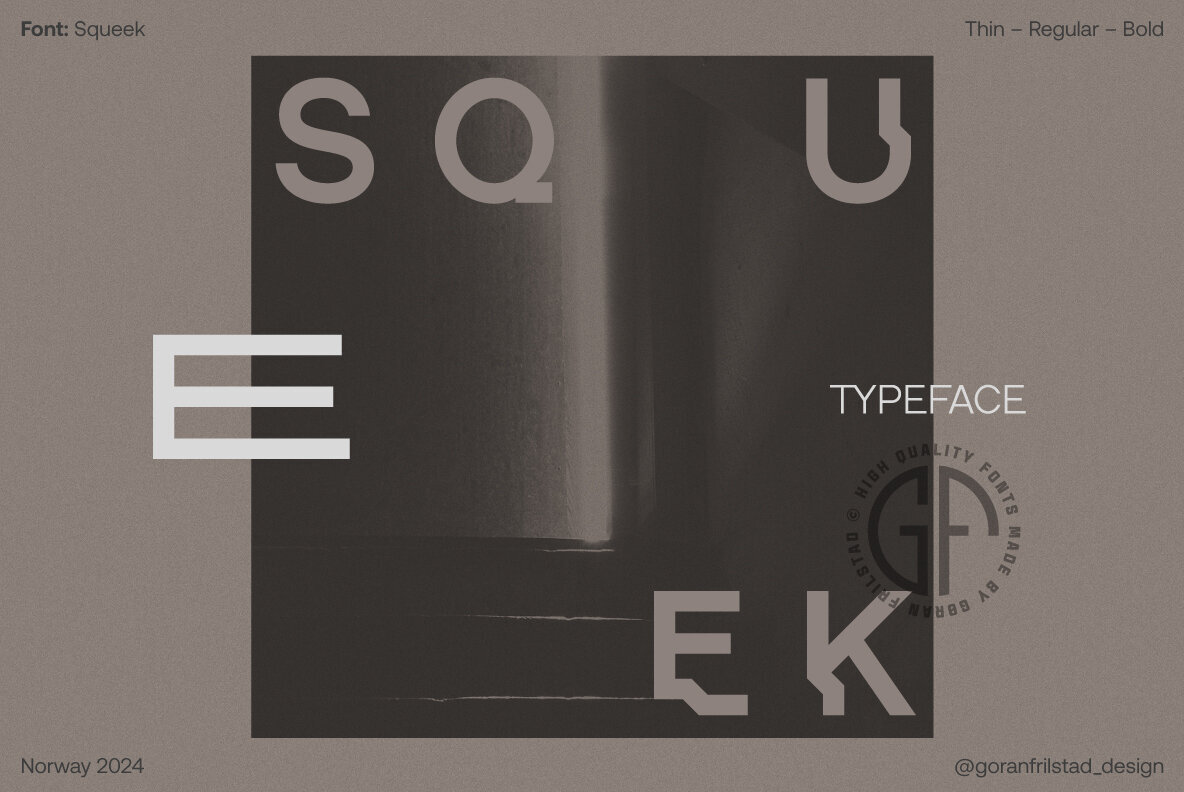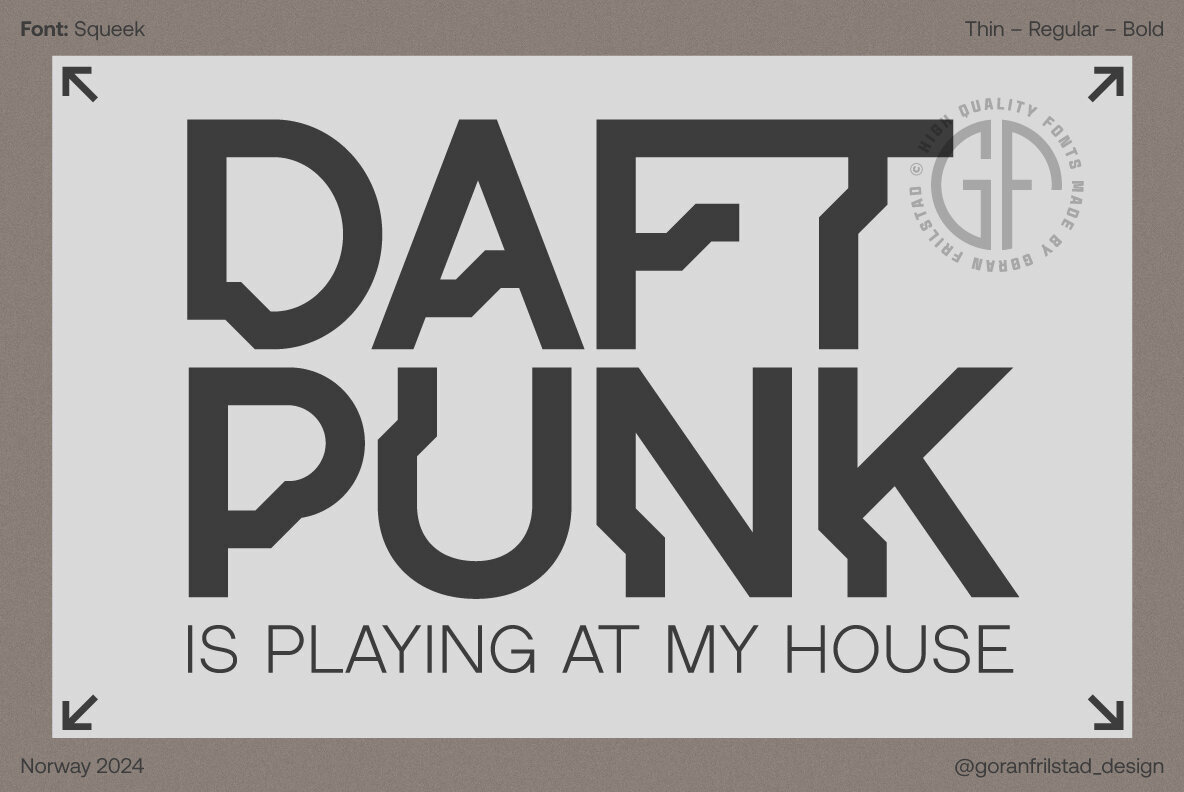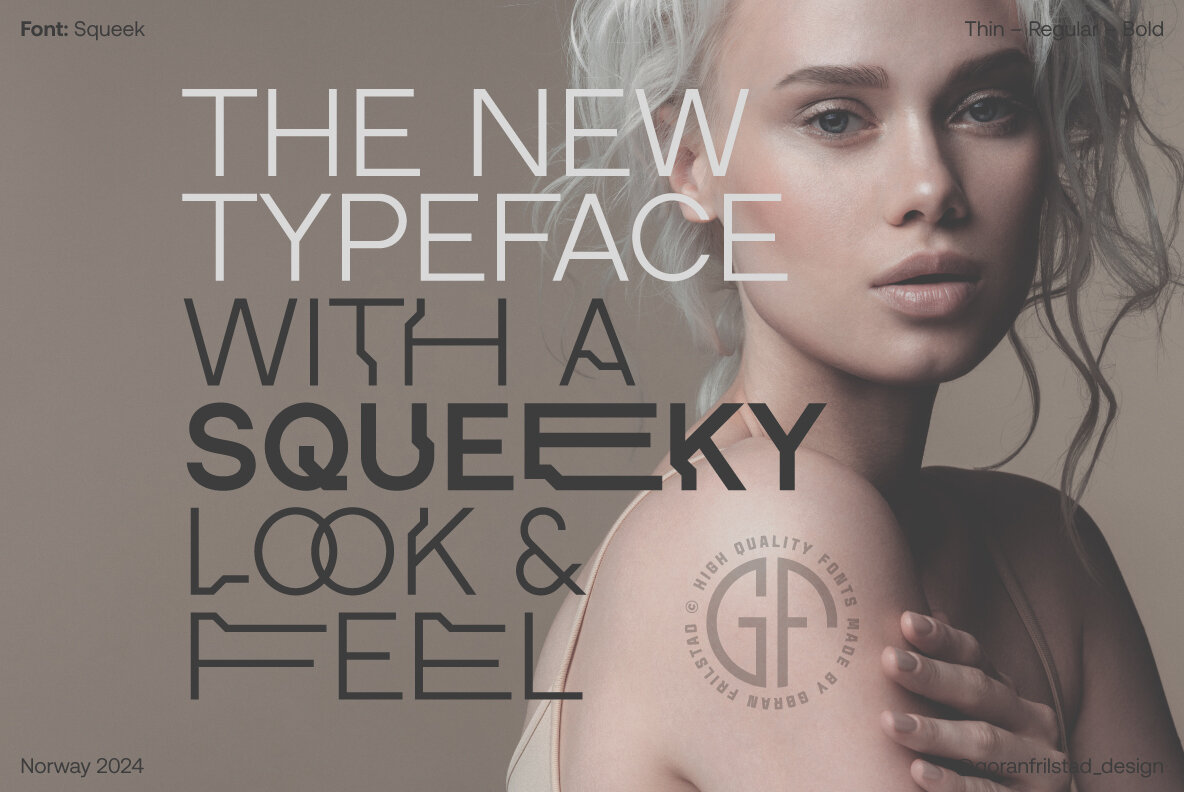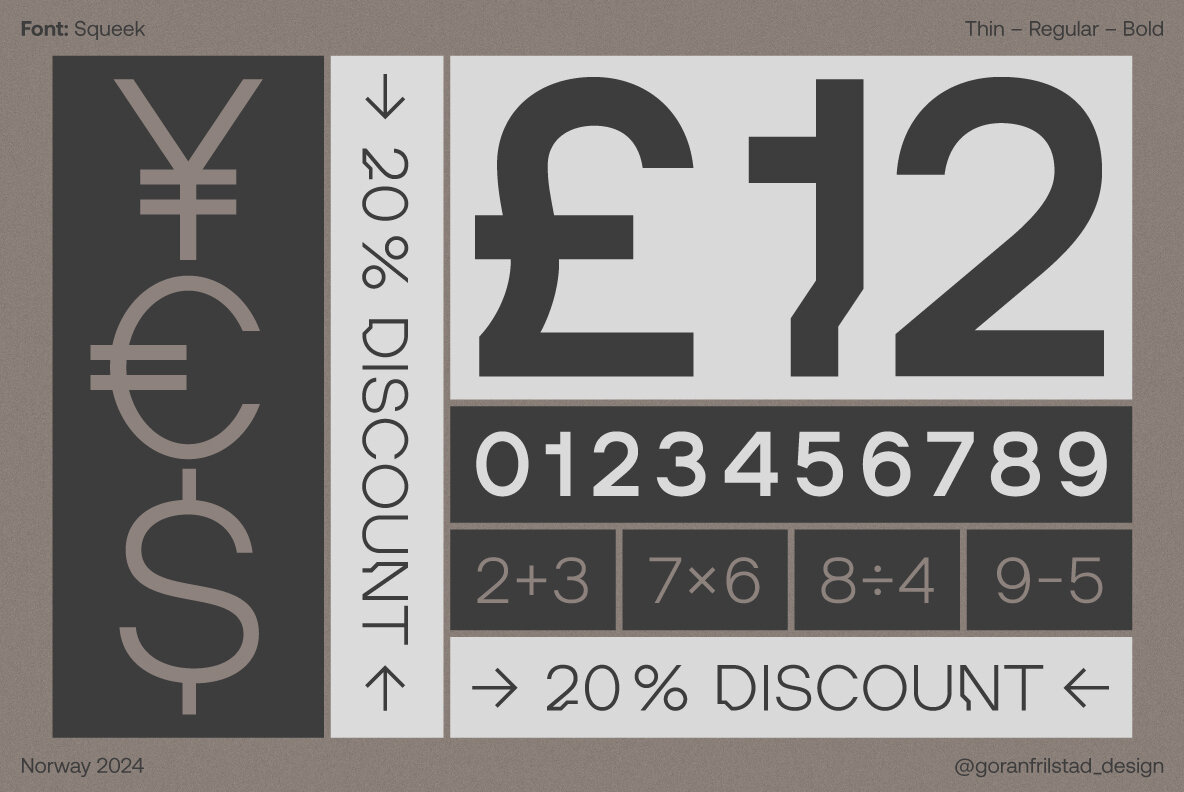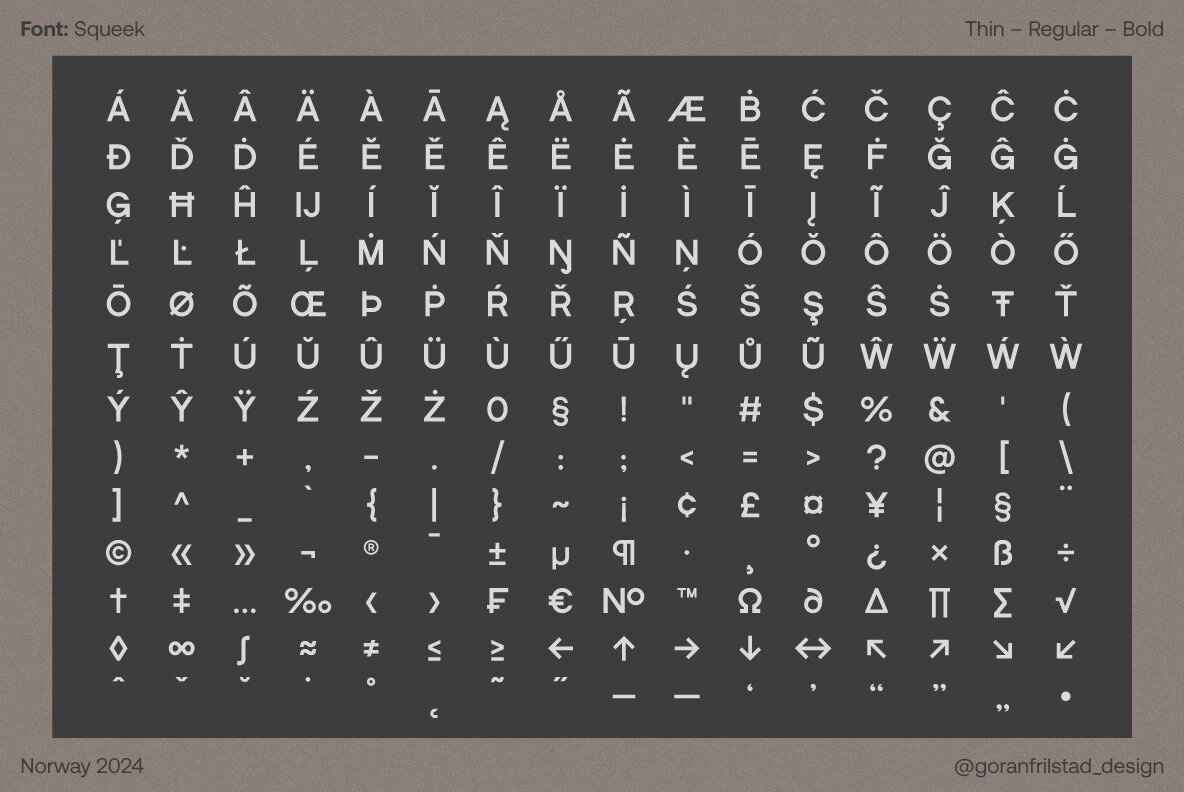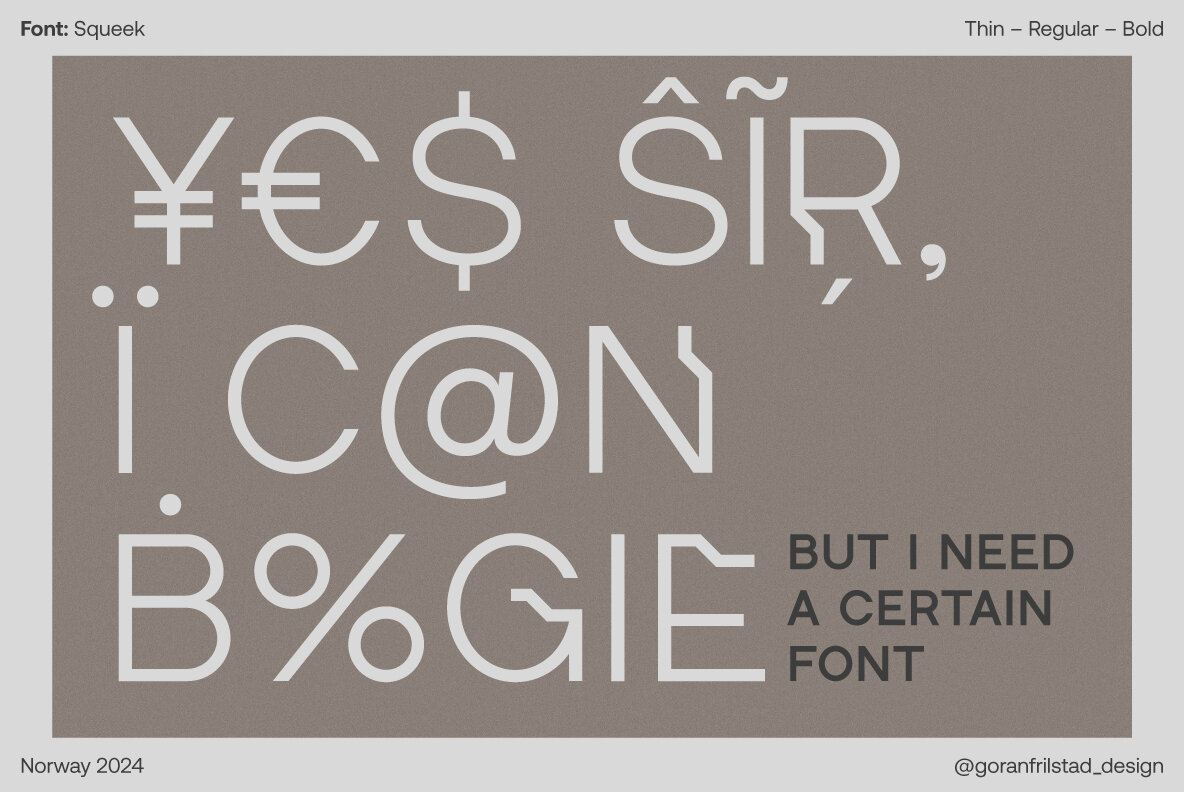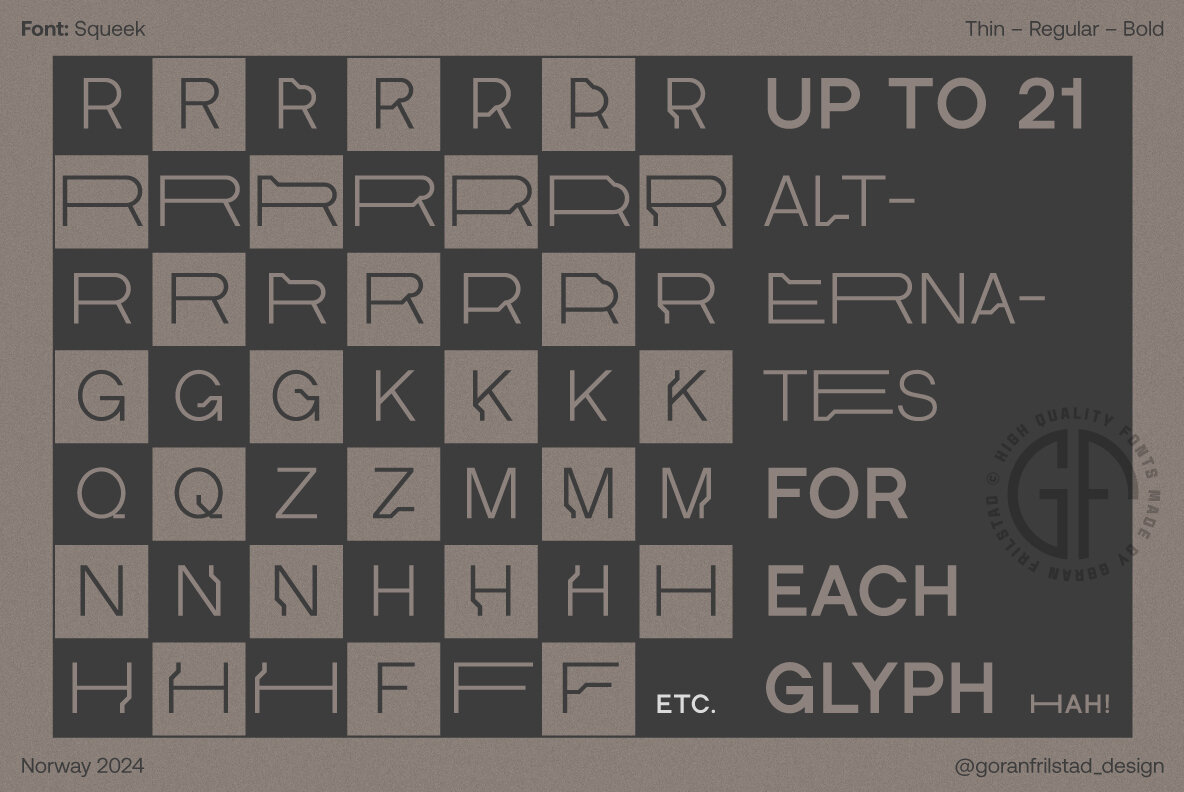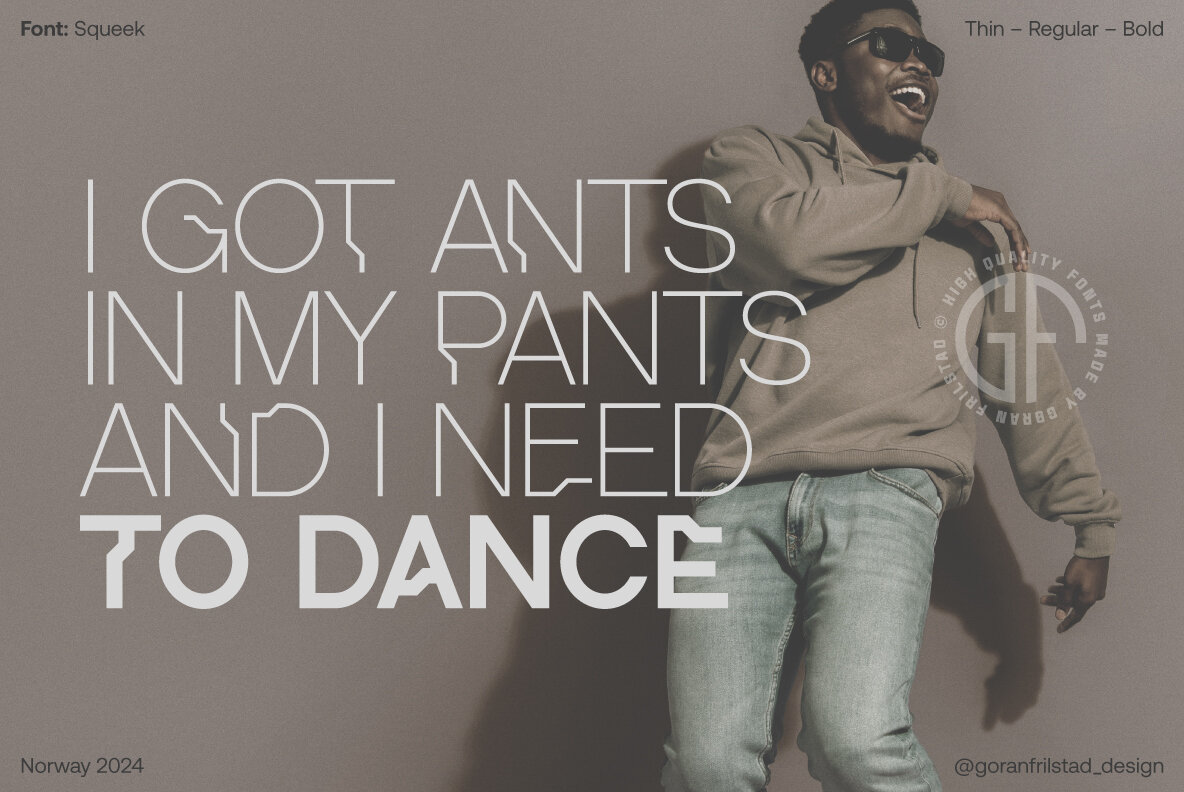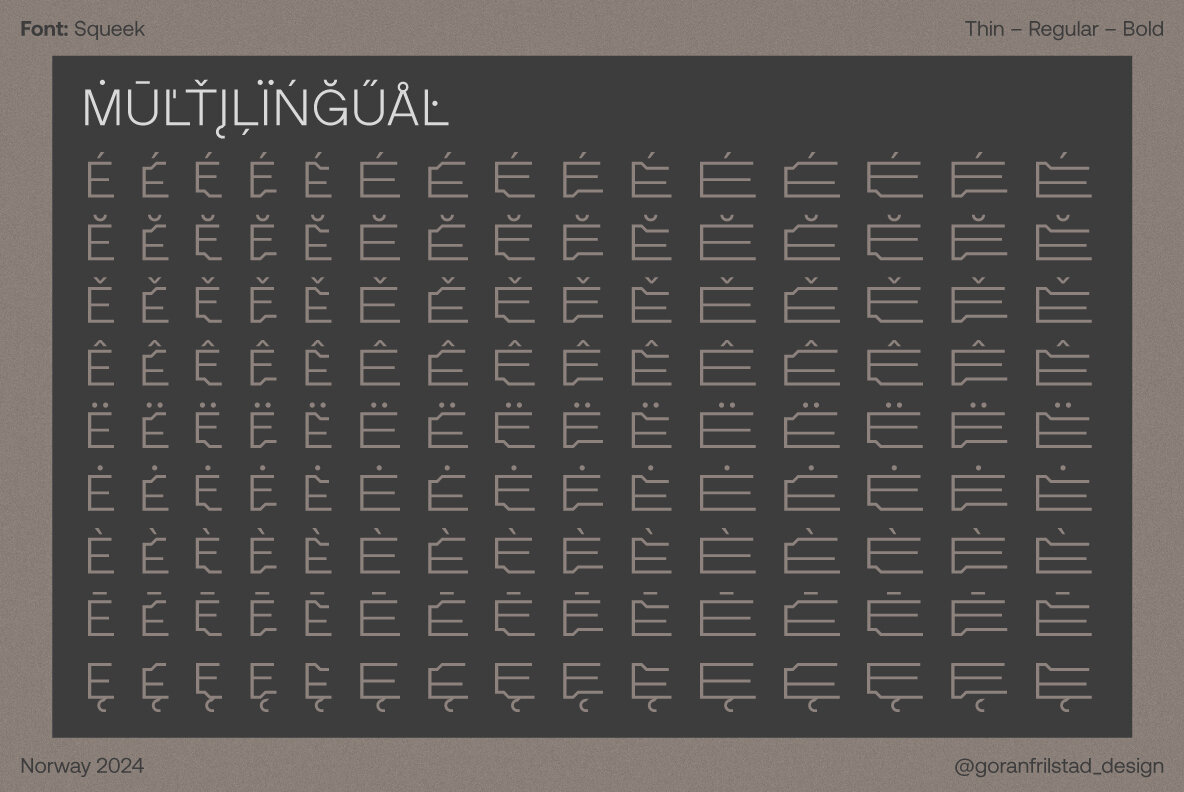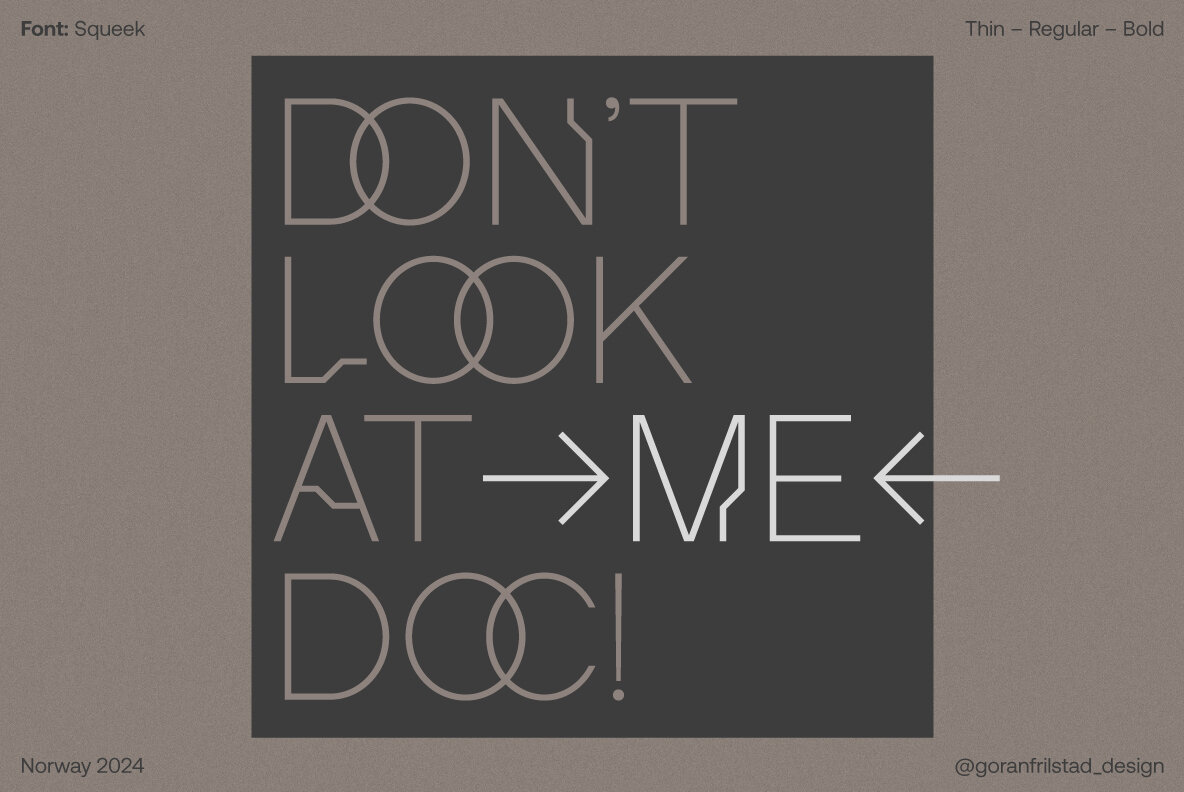
Squeek Font
Squeek is a multilingual sans serif font in all caps. Each font weight has 444 alternates with 870 glyphs in total and one glyph can have as much as 21 alternates. The typeface has three font weights. It's suitable for using as headings in magazines, posters, branding etc.